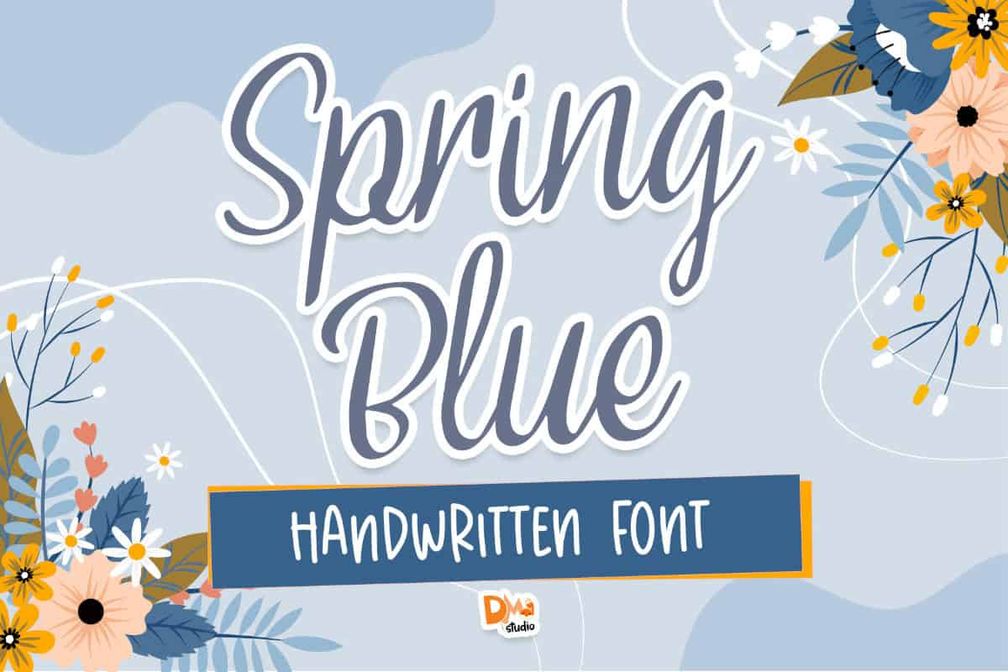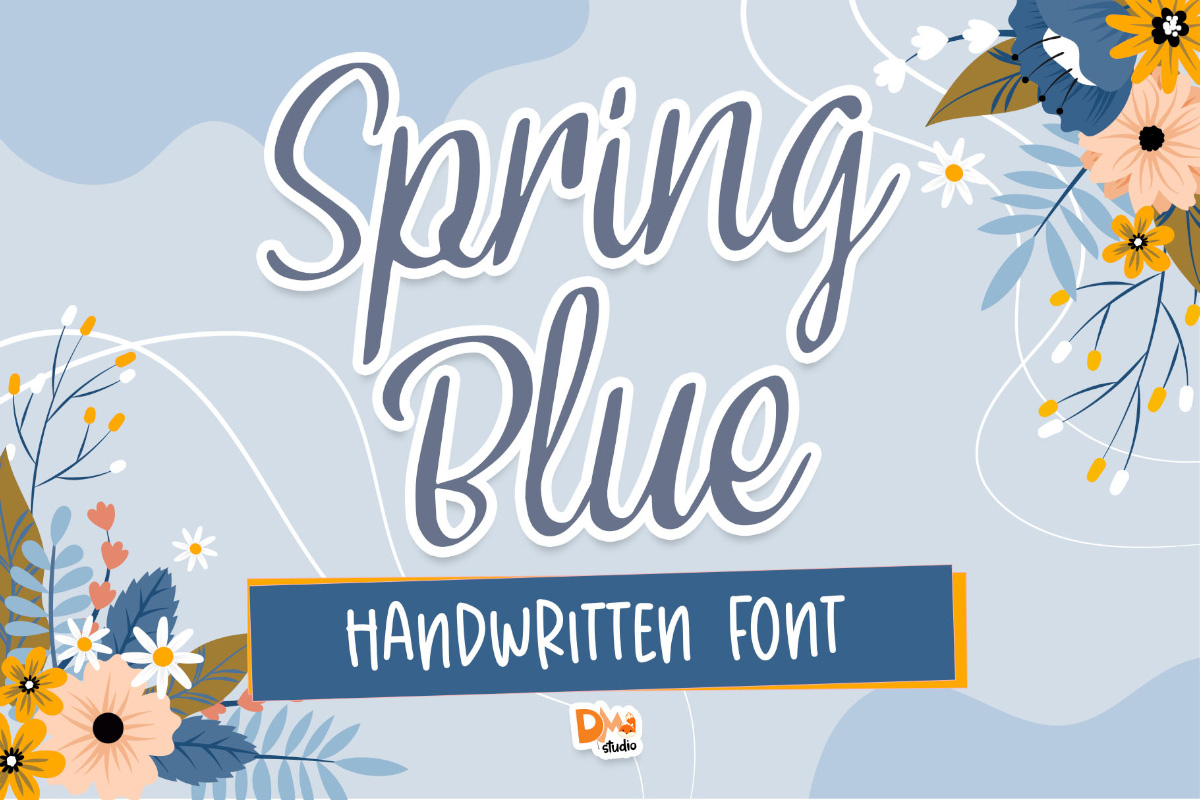
Spring Blue Font
Introducing Spring Blue Font, a refreshing and versatile typeface inspired by the vibrant colors and gentle breezes of spring. With its elegant letterforms and soothing aesthetic, this font adds a touch of freshness and tranquility to your design projects. Perfect for invitations, greeting cards, branding, and more, Spring Blue Font brings a sense of renewal and beauty to your creations.
1. Fresh and Elegant Design: Spring Blue Font features graceful letterforms and a serene aesthetic, evoking the beauty of springtime.
2. Versatility in Application: Ideal for a wide range of design projects, including invitations, greeting cards, branding, and more, adding a sense of renewal and tranquility.
4. Uppercase and Lowercase Letters: Both uppercase and lowercase letters included for creative flexibility.
5. Punctuation and Symbols: Comprehensive set of punctuation marks, numerals, and symbols for consistent and versatile use.